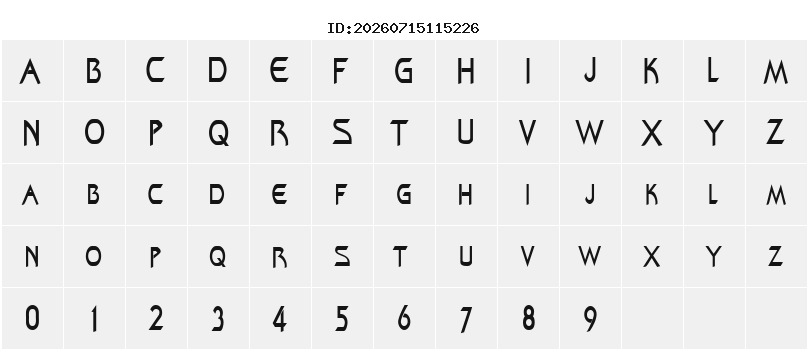
About ZenonCondensed.ttf
ZenonCondensed.ttf is a modern, elegant sans-serif font designed for ultimate readability and visual harmony. Perfect for branding, headlines, web design, and print materials.